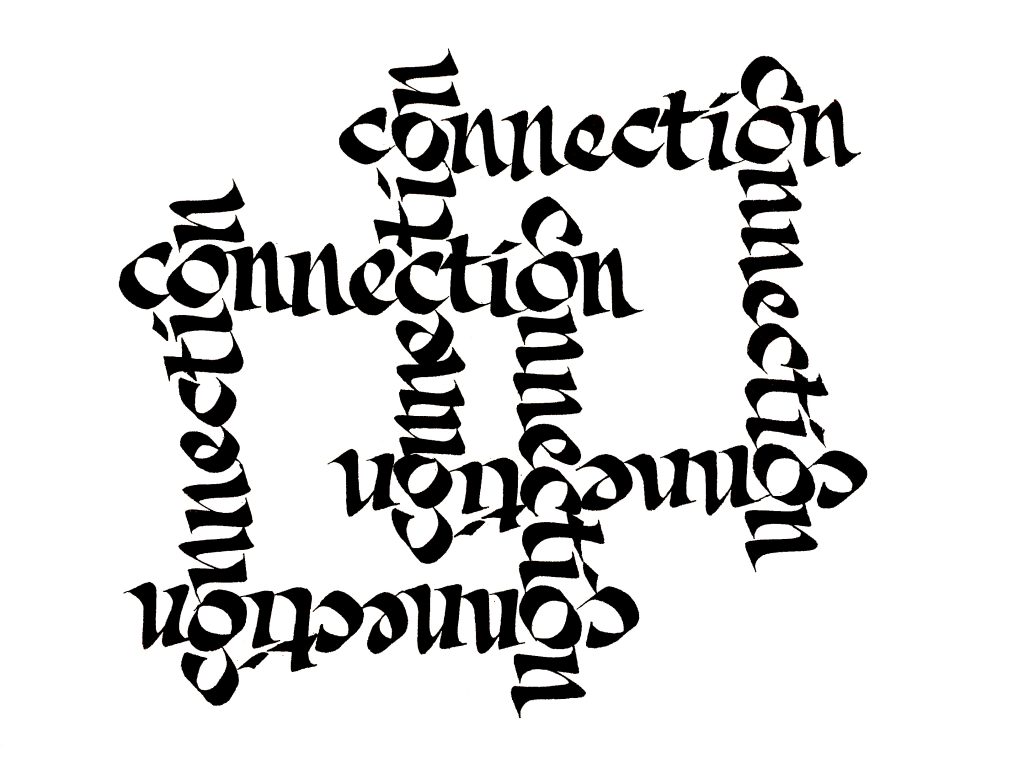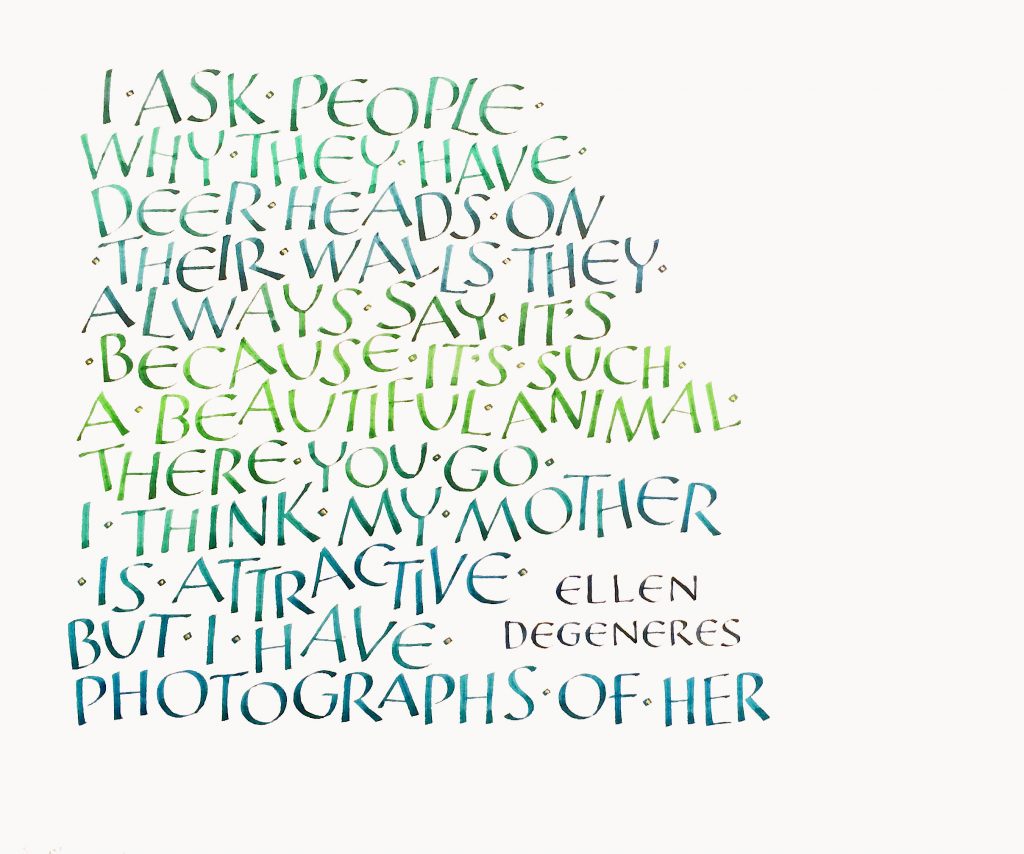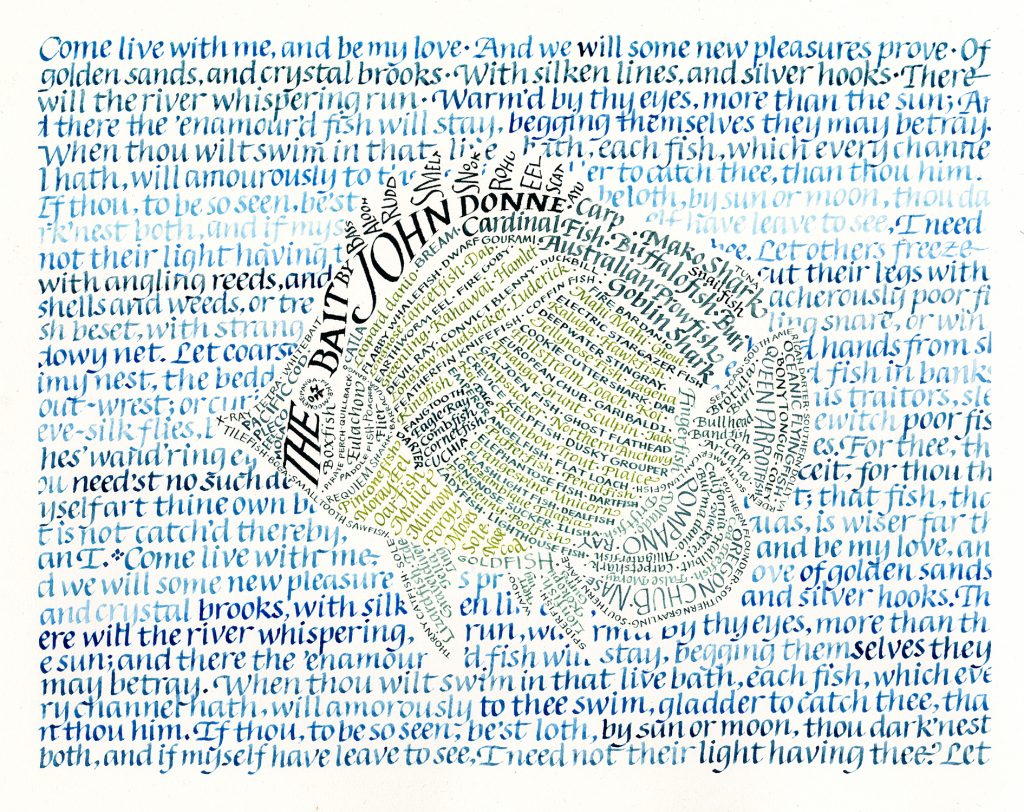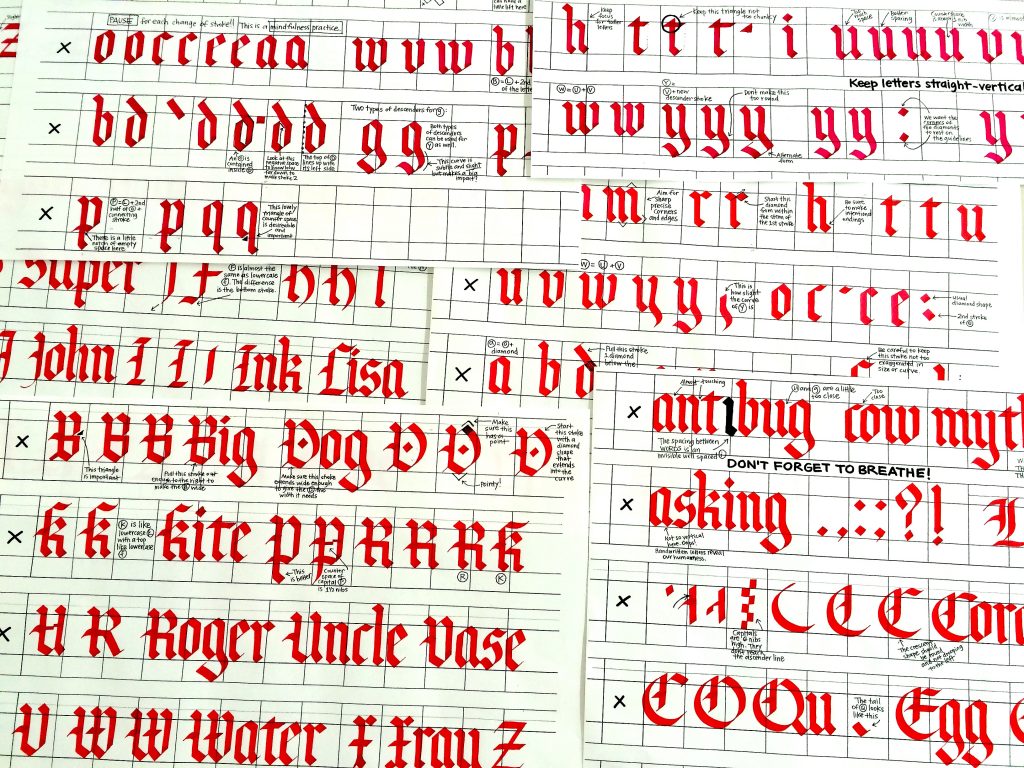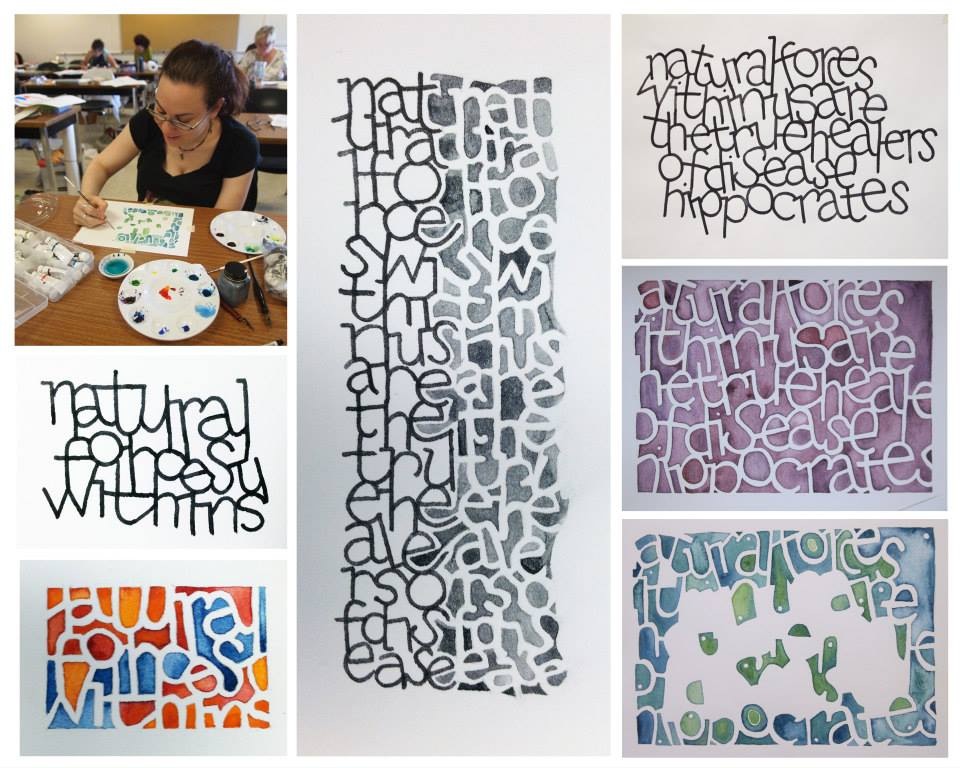
Cora Pearl has been practising the art of calligraphy since the late 1970's, and now has nearly forty years of experience. Cora works for Portland Community College as a calligraphy teacher, and her classes count towards college credit. I was very interested to discover that lettering arts are being taught at a college level, as sadly there are not too many educational institutions around now where this is still the case.
Although Cora now spends much of her time in Portland, she has travelled a great deal. She has explored different parts of the US and even ventured to Japan. Cora spent five years living in Japan, the culture and experience had a positive impact on her calligraphy skills. You may have come across some calligraphy groups or organisations during your lettering adventures, Cora actively participates in a number of these. Teaching at workshops and events like IAMPETH and Letters of Joy has added to the list of places Cora has explored and gained inspiration from. On top of all the teaching and organisational workshops, Cora finds time to host her own workshops for advanced lettering students too.
It is so clear how passionate Cora is about calligraphy and the lettering arts, and this is reflected within her work. She is able to letter words using calligraphy so consistently that at a quick glance her lettering could pass for a typed font. A skill I admire and would one day like to master. I have been conversing with Cora a little while to work on this interview, and she has already taught and introduced me to many new things, so if you're lucky enough to be located in or near Portland I can imagine she is a fantastic influence to be around.
Cora has a wealth of information and experience to share, so this interview is a little longer than other interviews I have done previously. There were so many questions I wanted to ask. In the following interview Cora talks about teaching calligraphy professionally, her travel experiences and how they impacted her skills, things that stand out in student lettering work, how to deal with rush projects, nibs for getting started with calligraphy and more.
When you were invited to teach at Portland Community College did you feel ready to teach your calligraphy skills? Was there a point where it was easy for you to distinguish between feeling ready to teach calligraphy and lettering or not?
"When I started teaching calligraphy at Portland Community College I did feel ready to teach those skills. I was already an experienced teacher, having homeschooled my three children for seventeen years, as well as having taught a calligraphy class once before and having taught many other topics as well (childbirth classes, organizing skills, astrology, English language for Japanese students, etc.). In that aspect, I feel like a born teacher—it has always come naturally to me. I also believe that teaching is an art in and of itself, and always prefer to study with teachers who are good at teaching aside from whatever skill or subject they are offering so have aimed to be a teacher like that myself. As far as feeling ready in terms of my lettering skills, I felt ready with that too having done calligraphy since I was 11 years old. I don’t remember a time of not doing calligraphy! So for me, it was a very natural thing to start teaching calligraphy at the college level."
Throughout your calligraphy journey you’ve travelled around both the US and the world, living in cities and small towns. Do you think there are any advantages or disadvantages to learning calligraphy based on where you live, or do you think it’s a truly universal skill that can be learnt from anywhere in the world?
"Ideally, it is best to take lettering classes in person, because it is such a specific and detailed art form in which the student benefits greatly from personal attention and in the moment feedback. I believe that we are learning two things in the initial study of calligraphy—we are learning to write the letterforms, of course, but also, we are learning to see in a new way. Being able to evaluate your own work can be difficult at first because the beginner doesn’t yet have the eye for understanding what is happening with the letters and spacing. For that reason, having feedback in real time from a teacher who has a well developed understanding of the principles of lettering and the skills to articulate and demonstrate it is, in my opinion, the best way to study this art form. I say this as a mostly self-taught lettering artist and if I could go back in time, I would have taken classes much sooner. However, if there are no good teachers available locally, travelling to take workshops and classes with skilled instructors is definitely worth it. Books and videos are great too, for supplementing in-person options."
Are there any tools or stationary that you discovered during your time in Japan that you continue to use?
"I do use a lot of pens that are made in Japan, but I have discovered all of those since coming back from Japan. The main thing that I continue to use from my time in Japan is the Japanese sense of design and I continue to have a deep appreciation for traditional Japanese arts and their influence on me."
Were there any calligraphy skills that you learnt in Japan which have had a long-term impact on your calligraphic style?
"As mentioned in the previous question, the greatest long term influence of living in Japan has been the exposure to Japanese culture and approach to making art. I studied Japanese quite seriously when I lived in Japan and I think that writing kanji (the Japanese writing characters) gave me a strong sense of spacing and stroke order that I could apply to doing calligraphy. In Japanese, each character fits into the same sized square, regardless of the complexity of the character. Also, stroke order is essential in writing Japanese successfully, and that gave me a deep understanding and even a reverence for how important stroke order is in writing the symbols of any language."
You’ve taught many calligraphy students, and you’ve seen a lot of work. What specific things have stood out to you from past work you’ve seen, and what can calligraphy artists do to make their work stand out?
"For me, there are three things that make work stand out whether it is student work, hobbyists, or professionals, and those are: well made letters that show an understanding of the principles of good lettering, excellent spacing between letters / words / lines of writing, and a strong design. I am generally interested in and attracted to any piece that has these three things clearly expressed, even if it is not something I would be inclined to create myself."
Lettering artists are often encouraged to take things slowly and exercise patience. This isn’t always possible in all situations though, for example when you only had four days to letter a detailed calligraphed certificate to be presented to the Dalai Lama. What advice would you give to those that end up working on rush projects?
"As a professional lettering artist, I am usually working with tight deadlines. Having a deadline really helps contain the experience of working on a piece. At this point I know more or less how long a particular type of project is going to take, but that sense of time was hard earned through experience. Each artist works differently, so timelines will be unique to each person. However, some things that have helped me with working with deadlines are: • Creating a Project Order with all the relevant details about the project that I can refer to easily (contact information, project specifications such as size, client requests, design specifications, price, deadline, payment details) • Create a timeline and schedule of preparation, design, and execution • Leave plenty of time for designing—this is where most of the hard work takes place • Take plenty of short breaks while working on the final piece. I define a short break as 5 to 15 minutes and staying within visual distance of the piece itself. A long break would be more than 15 minutes and can involve stepping away from the work. I take less of those. • Make sure to stay well nourished and hydrated • Meditate, breathe deeply, and create rituals to help stay focused and calm under pressure • Listen to relaxing music with a drone quality and no words to fill the sound environment just enough to quiet my thoughts but still be able to concentrate • Put a sign on the door that says Artist At Work—Please Do Not Disturb •Hug people I love as needed"
You’re a member of Portland Society for Calligraphy, would you encourage fellow calligraphy and lettering artists to join local societies and organisations? What are some of the less obvious benefits you’ve come across from being an active member of calligraphy organisations?
"I think it is a great idea to join local calligraphy guilds for learning more about what is happening with lettering arts where you live. Guilds are a great resource for finding out about classes and workshops in your area. Less obvious benefits could include discovering the joy of being part of a community who shares this very particular interest, and contributing to the growth of this art form (even as a beginner!)."
Every experienced calligraphy artist has individual recommendations on calligraphy pen nibs that are good for beginners. What do you recommend beginners in your workshops and college classes start out using?
"For broad edge pen calligraphy, I recommend Brause nibs for beginners because they are well made, last a long time, they are strong, and they have a built in reservoir to hold ink. They are on the stiff side and therefore can handle someone who writes with a heavy hand. For pointed pen calligraphy, I recommend the Nikko G nib for beginners because it is good for a heavy hand and because pointed pen relies on pressure and release to create thick and thin strokes, the Nikko G is good for learning how to adjust to changing pressure as you write."
What are the main ways you’ve noticed calligraphy change and evolve since you started learning in the late 1970’s?
"I have noticed a move toward calligraphy being used as a form of expression in and of itself as well as serving practical functions. I think the work is generally more colorful and there are more examples of abstract lettering and mark making. Legibility is not always important now, depending on the project. Also, there is more gestural lettering and other tools being used like the folded pen and the brush pen."